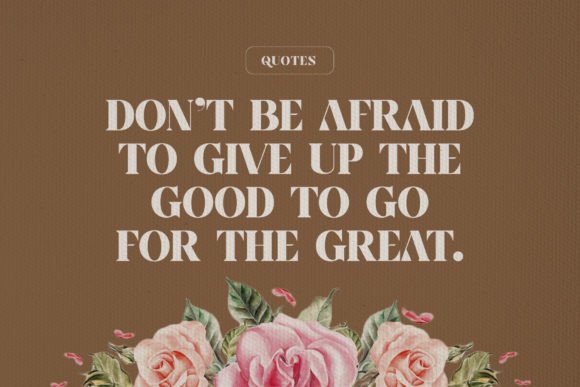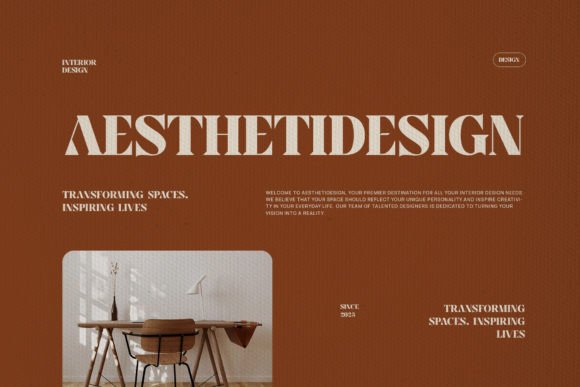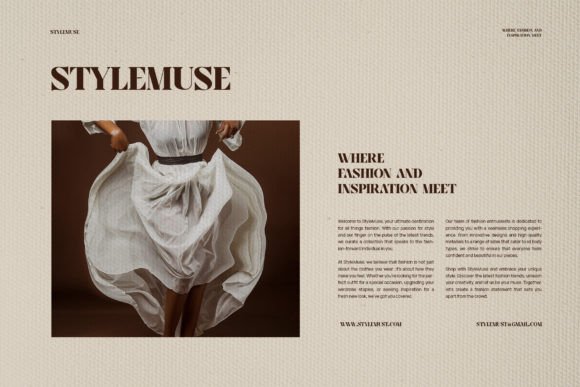
Introduction to Sakez Font
Sakez is a unique and very elegant font for branding and logo designs Elegant serif typeface combined with a classy and modern style.
This type of font is very suitable for your various needs such as branding projects, logos, wedding designs, social media posts, advertisements, product packaging, product designs, labels, photography, watermarks, invitations, stationery, and any project, created with high level of readability .
Key Features of Sakez Font
Why Choose Sakez Font?
Sakez Font offers exceptional quality and versatility, making it a valuable addition to your design toolkit. Whether you’re creating for personal projects or commercial use, Sakez Font delivers professional results.